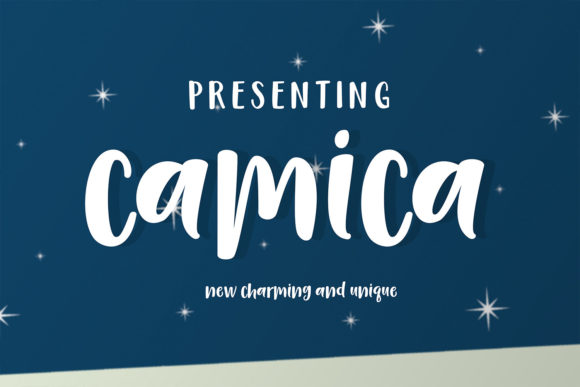
Behold Camica, a font that embodies the essence of joy and celebration! Its free-flowing, elegant curves bring warmth and charm to your designs, making it the perfect choice for adding a personal touch to your creative projects. Available in three styles – Regular, Outline, and Fill – Camica offers versatility and endless possibilities for customizing your work.
Indulge in the beauty of Camica's expressive letters, meticulously crafted to evoke a sense of playfulness and wonder. Its charming imperfections add a touch of authenticity and whimsy, making it ideal for creating heartwarming designs that resonate with your audience. From birthday cards and invitations to social media posts and marketing materials, Camica will infuse your creations with a unique and captivating charm.
As a script font, Camica possesses an inherent allure that captures the essence of handwritten notes, creating an intimate and personal connection with your readers. Its smooth lines and graceful flourishes lend an air of sophistication and elegance, enhancing the overall visual appeal of your projects. Whether you're designing wedding invitations, greeting cards, or personal branding materials, Camica will add a touch of heartfelt elegance that leaves a lasting impression.
Harnessing the power of creativity and emotion, Camica transforms your words into captivating expressions. Its enchanting characters dance across the page, inviting your audience to immerse themselves in your message. With its ability to convey a wide range of emotions, Camica is the ultimate choice for adding depth and personality to your designs. From heartfelt love letters to inspiring quotes, this font will elevate your words and make them resonate with your readers on a deeper level.